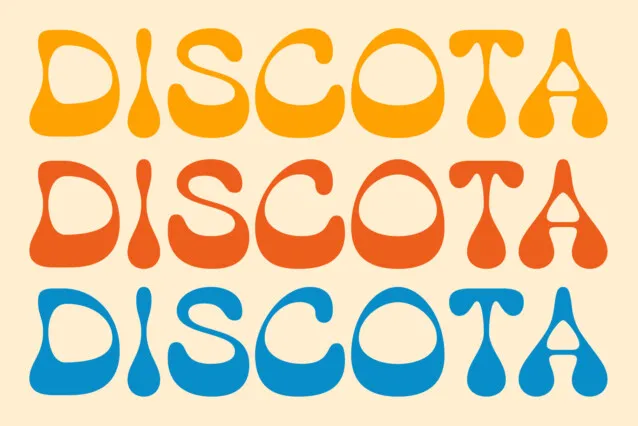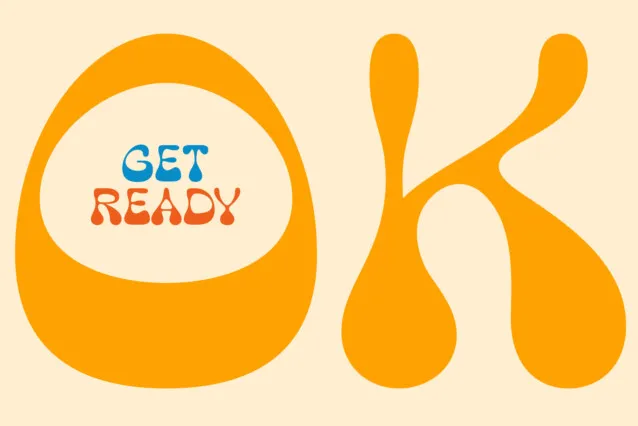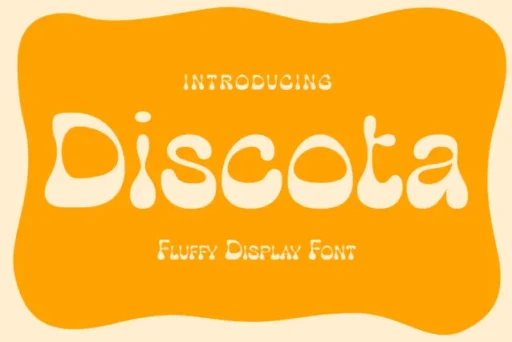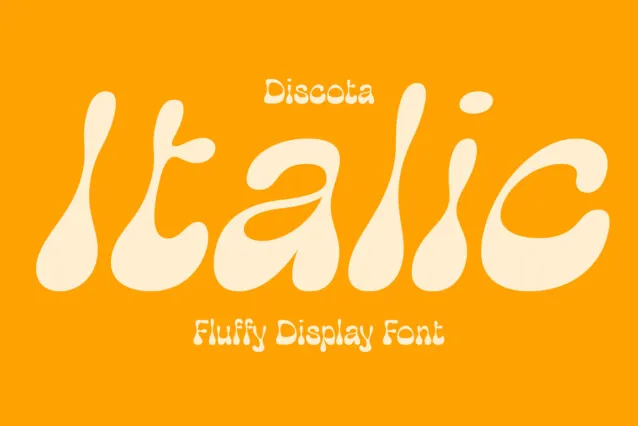
Discota Display Font
Discota Display Font will add some fun of the eighties and nineties into your design. It contains playful and cozy rounded letters. Both characters are portrait of smooth curves and smooth edges. This adds a nostalgic, warm but not retro appearance to your work.
The shape of the font is drawn after the boogie and disco motif. And you will feel its light bouncing and grooking in each line of it. It is very useful on big scale, where headlines stand out and signs are noticeable. Even when it is smaller, its readable forms are recognizable.
Discota works best with the projects requiring some retro twist:
Posters and flyers: Attract attention because of its loud and playful style.
Logos and branding: Provide brands with friendly positive voice.
Clothes and accessories: Say something fresh and vintage at the same time.
Packaging design: Design labels that can be noticed on shelves.
Social media graphics: Introduce a buzzing atmosphere to postings and stories.
In addition to the retro vibe, Discota can also adjust to the current trends. It looks good with plain general sans-serif typefaces in body text. It also combines with script or handwriting styles to be more eclectic. Apply it in colors of high vibrations to magnify its goofiness. Or just wear it with shades of lower intensity and allow it to present its curves.
Discota Display Font allows you to get the liberating spirits of the gone times. It brings out a memorable fun atmosphere to your designs. You feel like living in the memories of the past or simply give your project some flavor of happiness? Discota will add this retro flavor to your work. And go ahead and do it today and see your writing grow with the style and spirit.
Where Discota Display Font works best
Discota Display Font is built for size: event posters, hero headlines and billboard-style layouts.
High contrast display type like Discota Display Font reads instantly in thumbnails and motion graphics.
What is Discota Display Font good for?